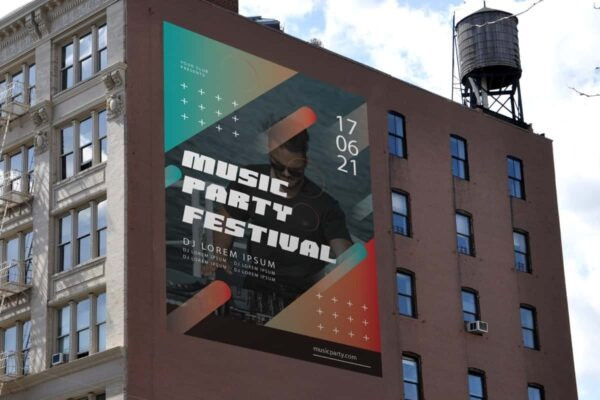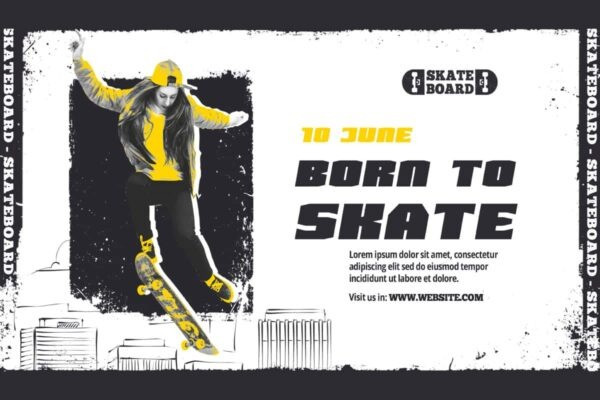
Drove Nonstop Font
Drove Nonstop Font is a brand new racing font by RaisProject. This font has a basic character, but the racing theme makes it eye-catching. It will be great for custom design, poster, label, signage, stationery, product packaging, quotes, brand image, advertisement, invitation, marketing material, website page, and more!
Drove Nonstop Font includes a full set of ALL CAPS for Uppercase and Lowercase Letters, Numerals, and large range of Punctuation. This cool font will be suitable for various industries, such as sports, automotive, fashion, game, barber shop, cafe, event or festival, photography, printing, publishing, etc.